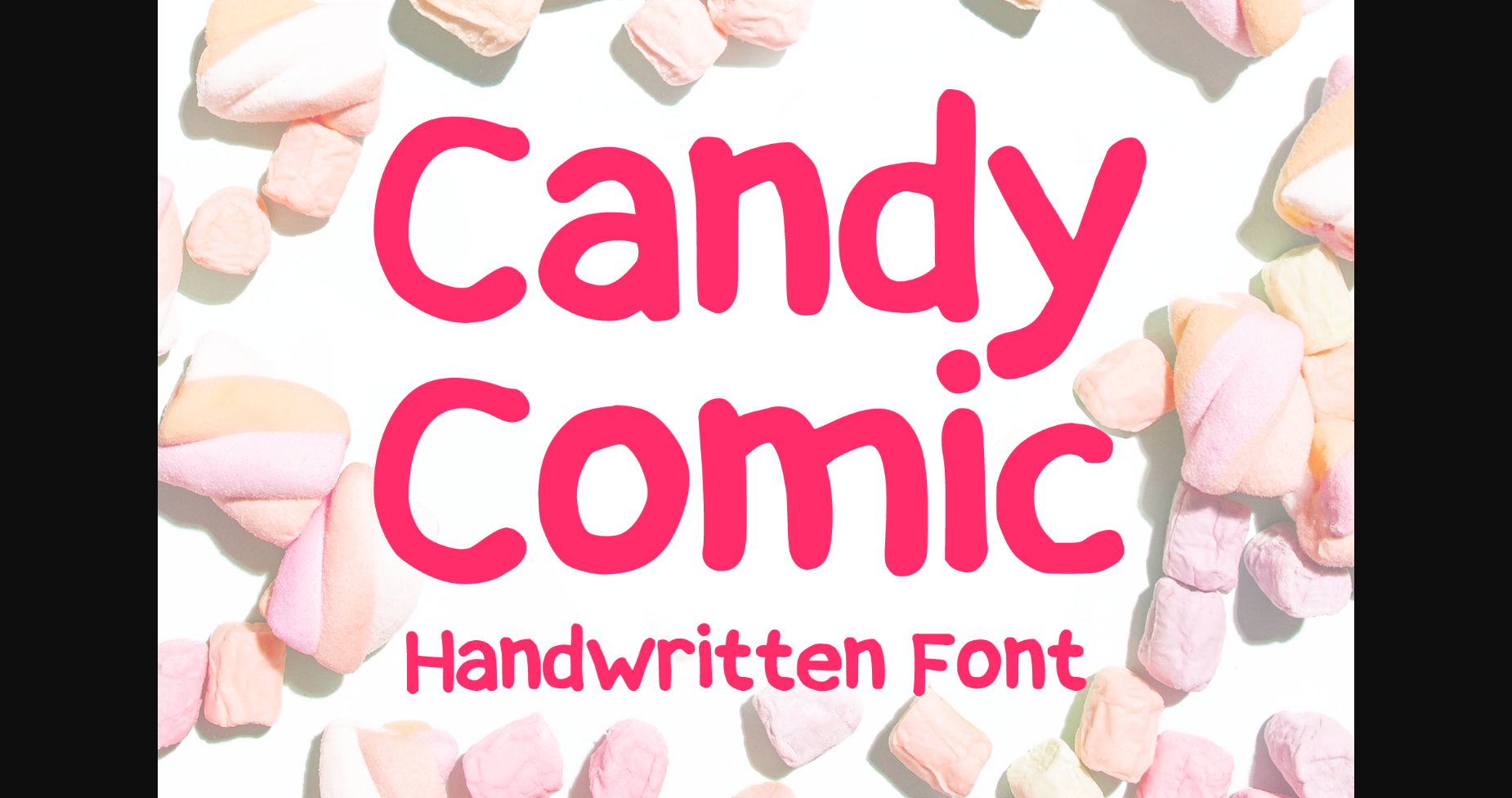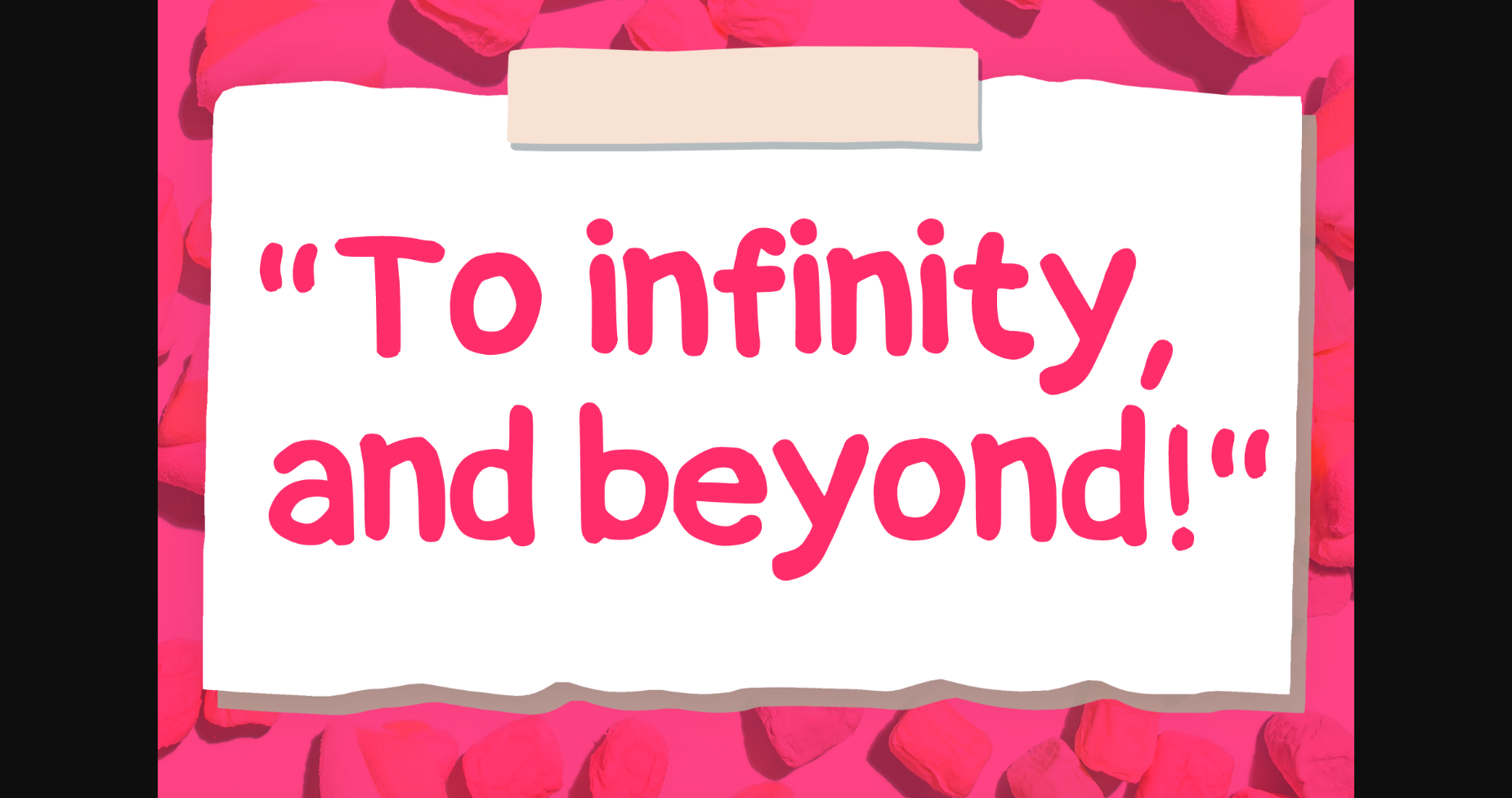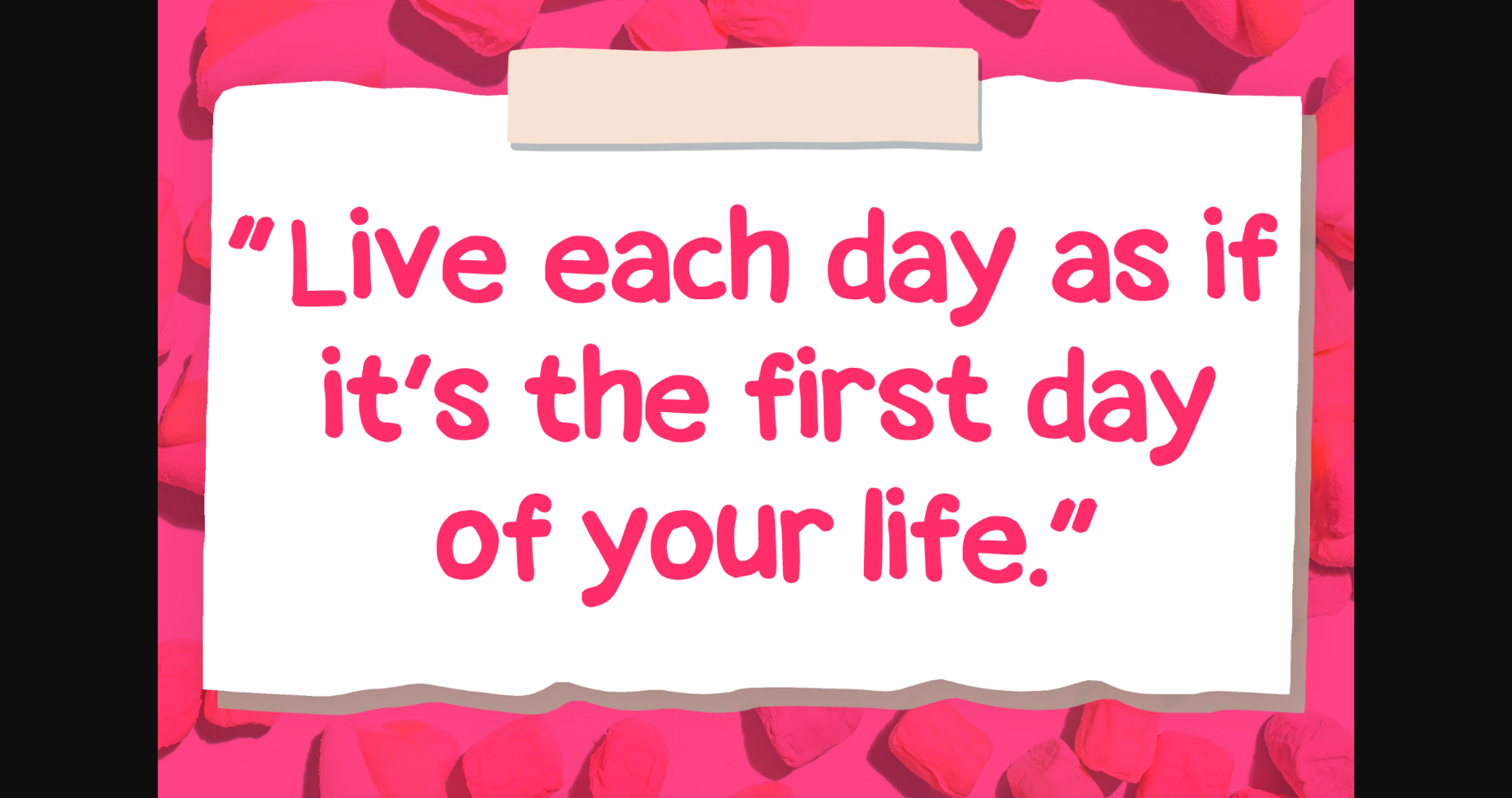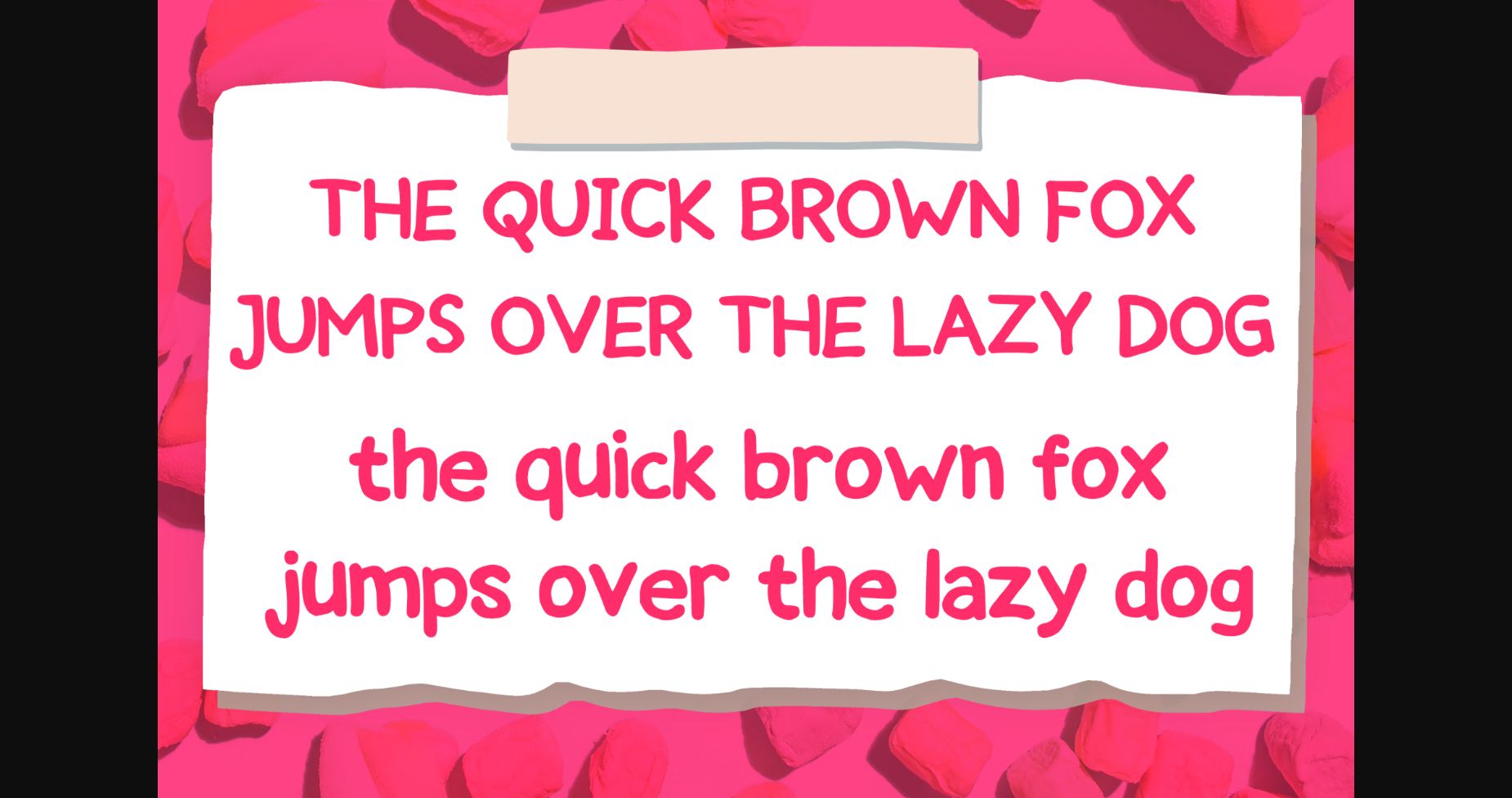
About Candy Comic Font
Candy Comic is a fun and comical handwritten sans serif font. You can use it for anything ranging from t-shirts, kids’ book designs, and greeting cards to stickers and posters, or anything that needs a casual touch. Fall in love with its incredibly versatile style and use it to create lovely designs!